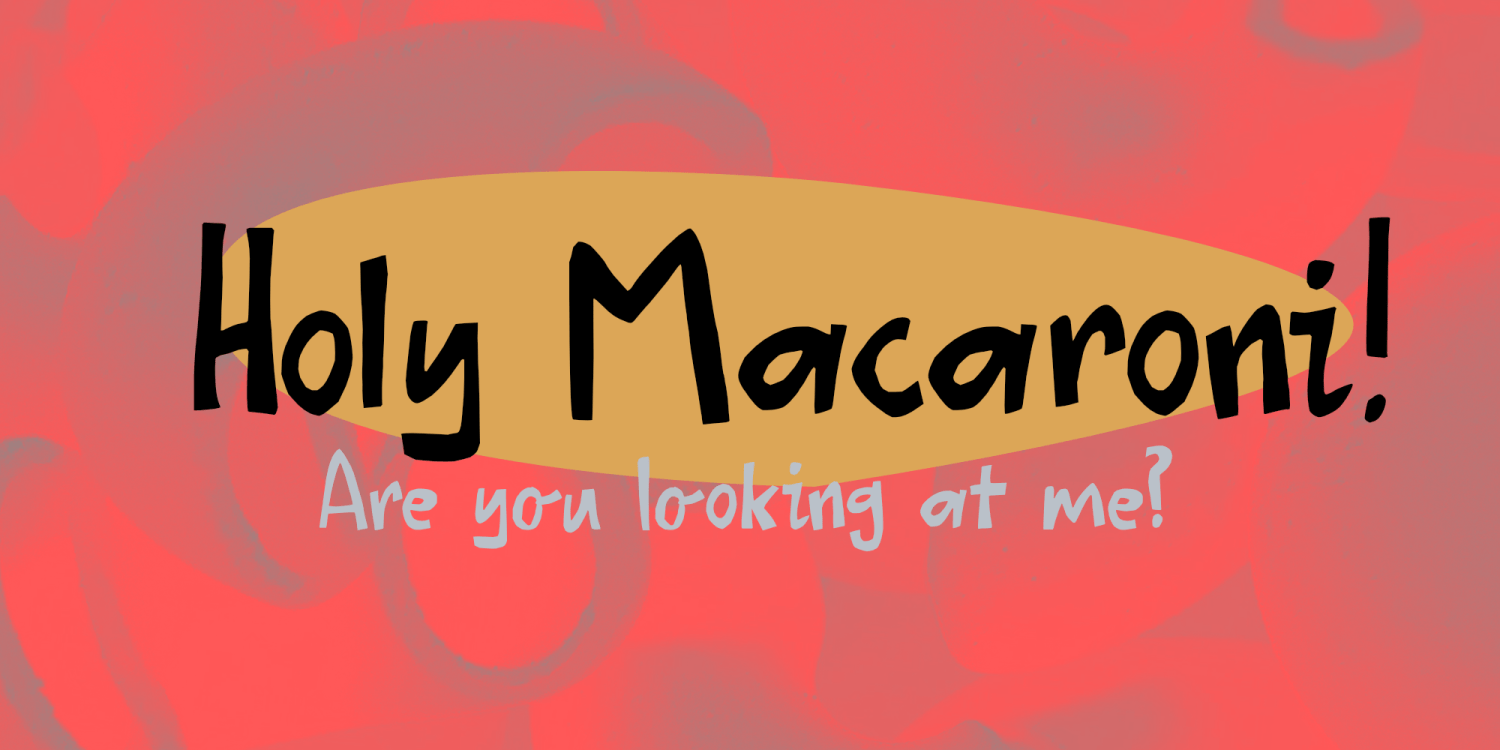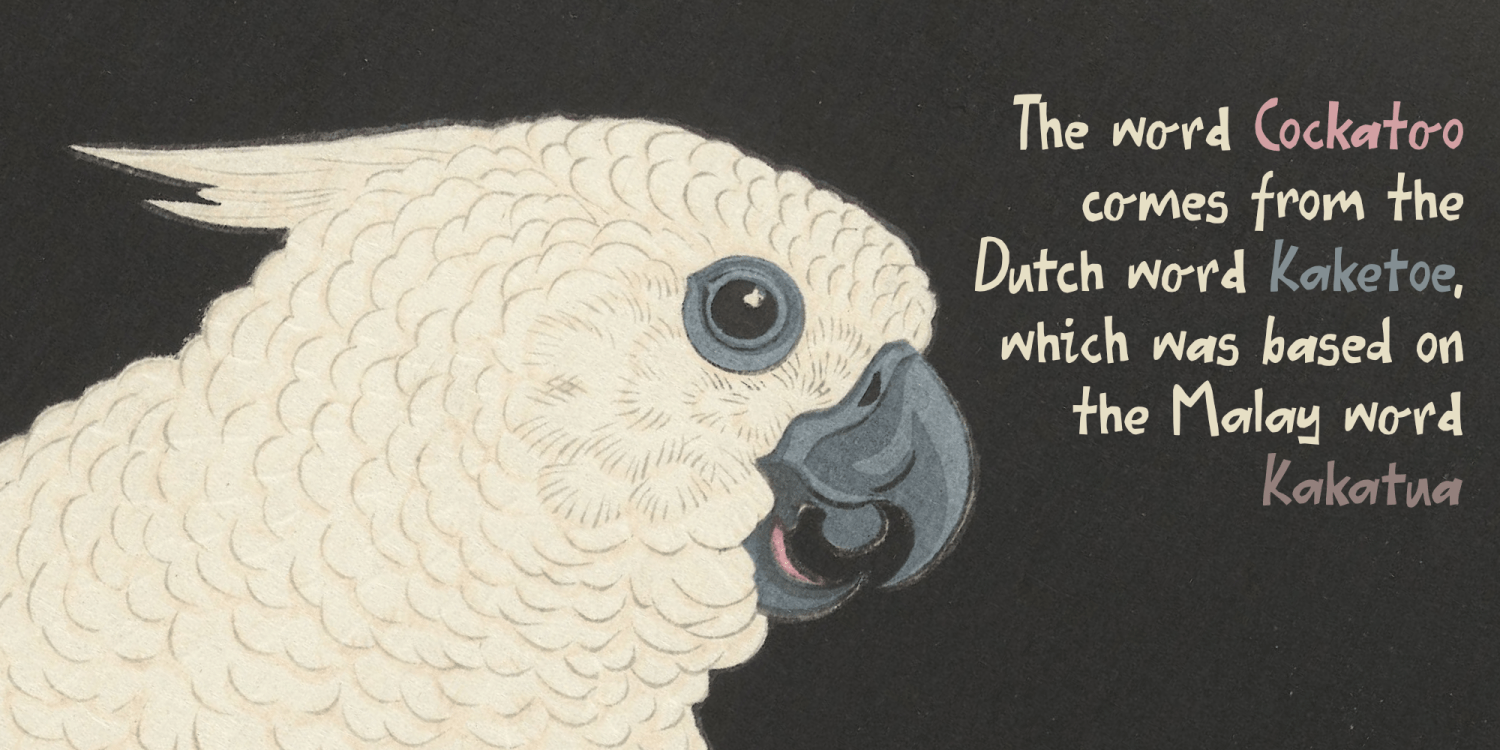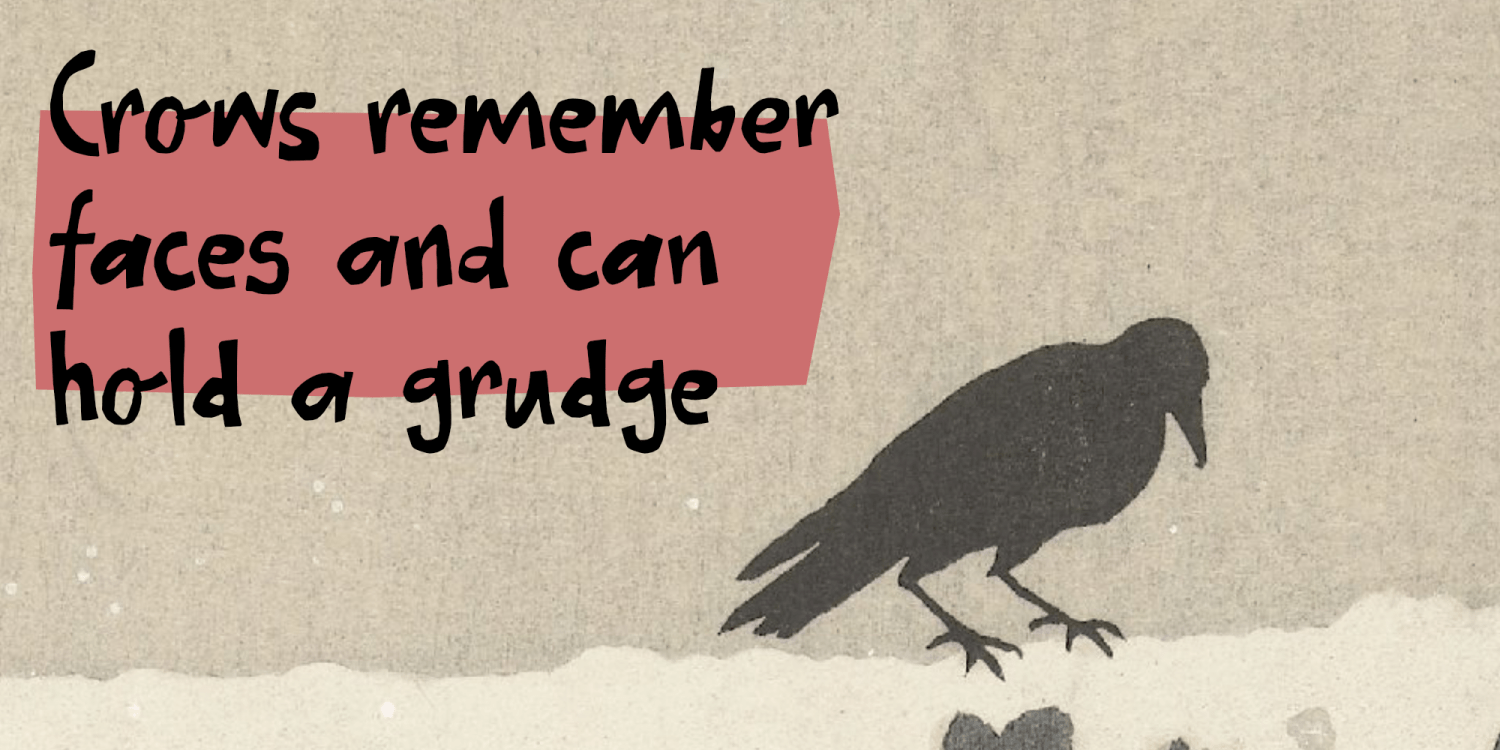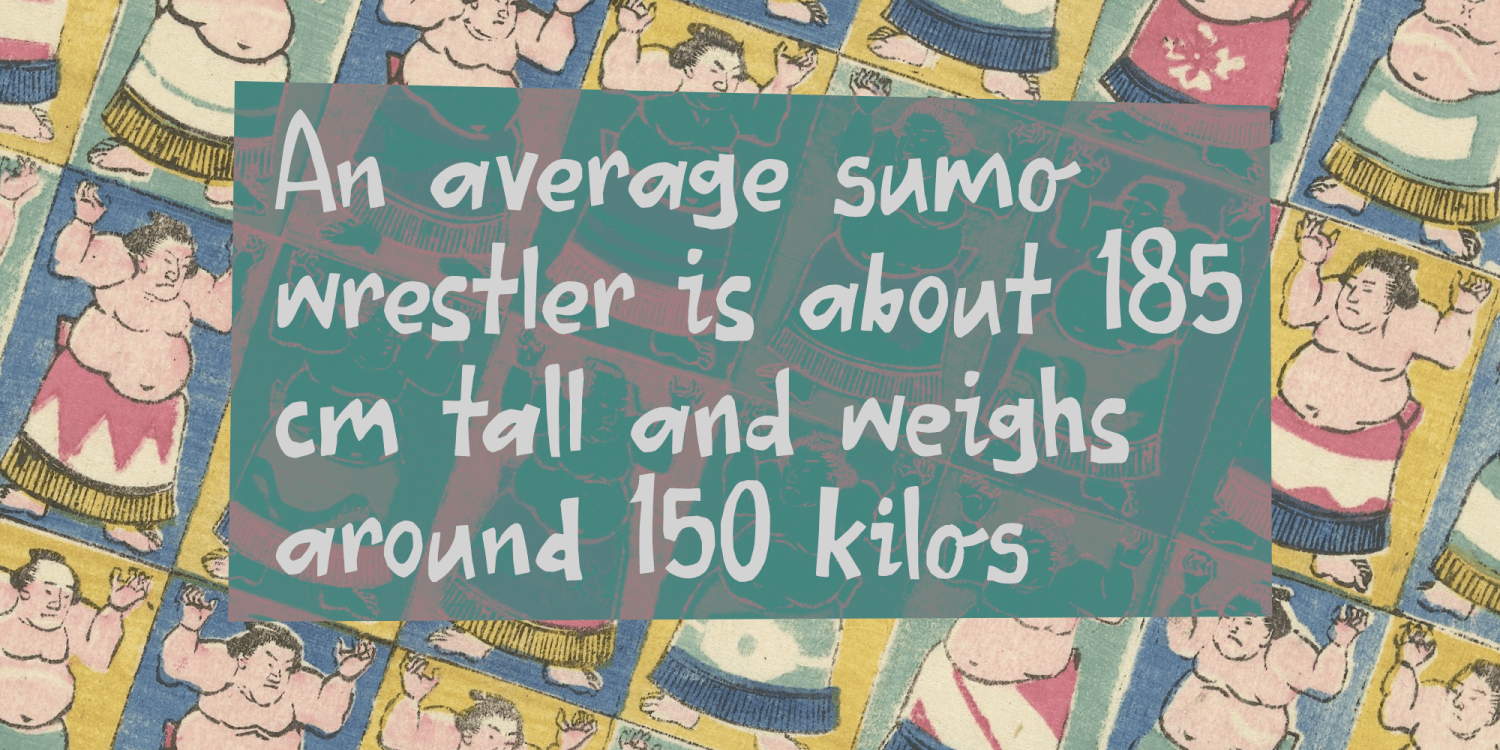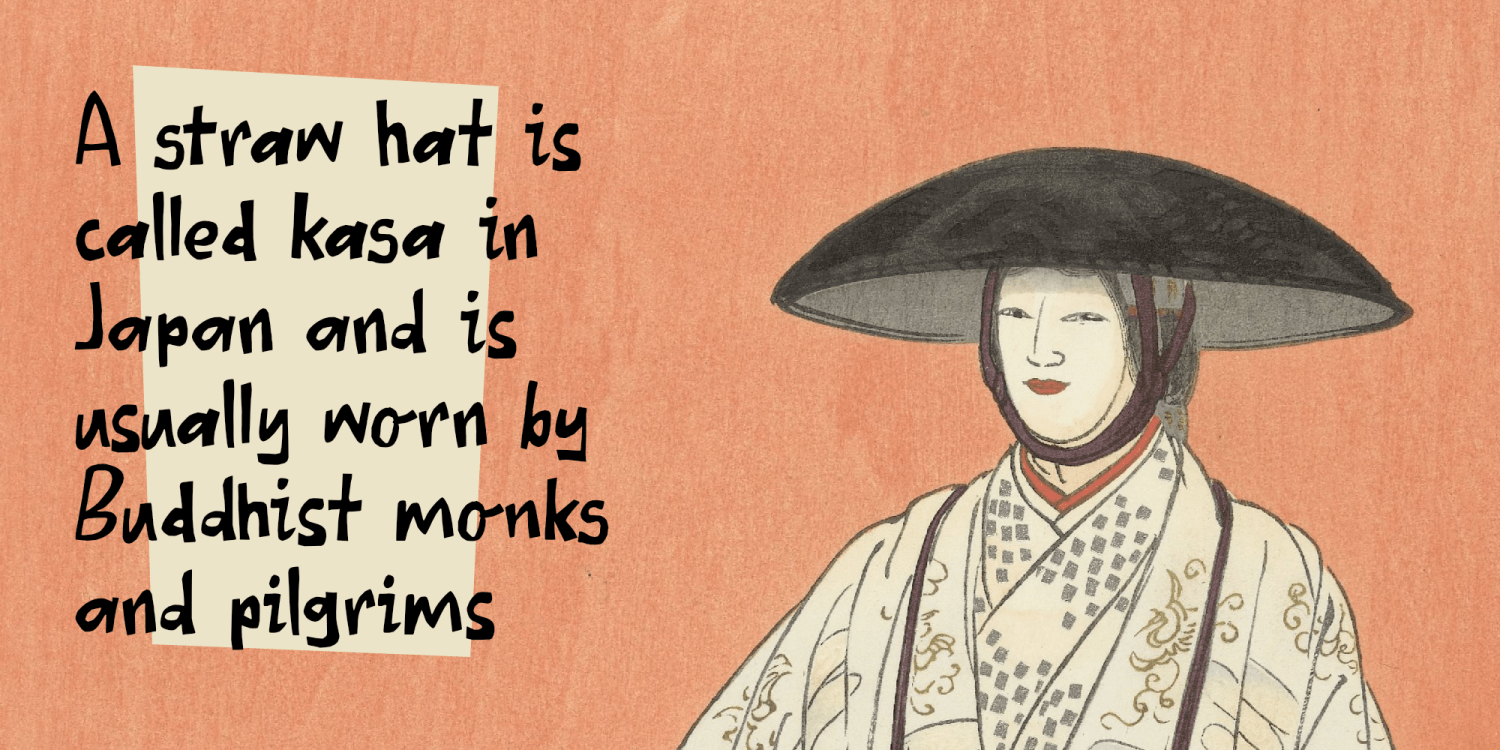
Holy Macaroni
My kids love Macaroni - the small elbow shaped variety. When I make it, I used ground beef, vegetables and a tomato based sauce, I mix it all up and serve it with grated cheese. It’s one of the only dishes that the kids will eat without complaining.
I made Holy Macaroni with a roller ball pen. I drew the glyphs, then scanned the paper, filled the outlines and vectorised them. The result is a messy, yet fun font which you can use for almost anything.
Holy Macaroni by Hanoded